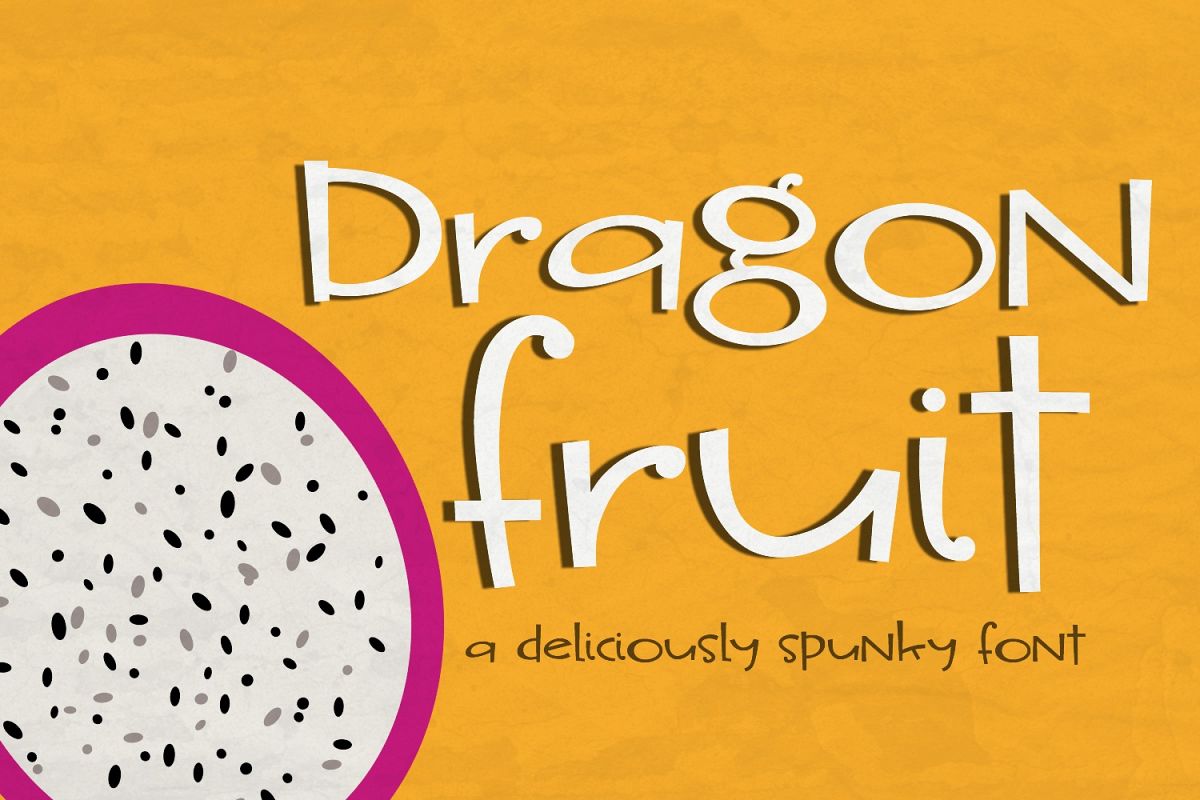
Dragon Fruit Handwritten Font
Though I truly love all the fonts I've made, so far THIS one is my favorite! It is youthful and quirky, but also readable and smooth making it a great font choice for Cricut and Silhouette crafters! It is available in Open Type (.otf) and True Type (.ttf) file formats, and supports English and most Western European languages.